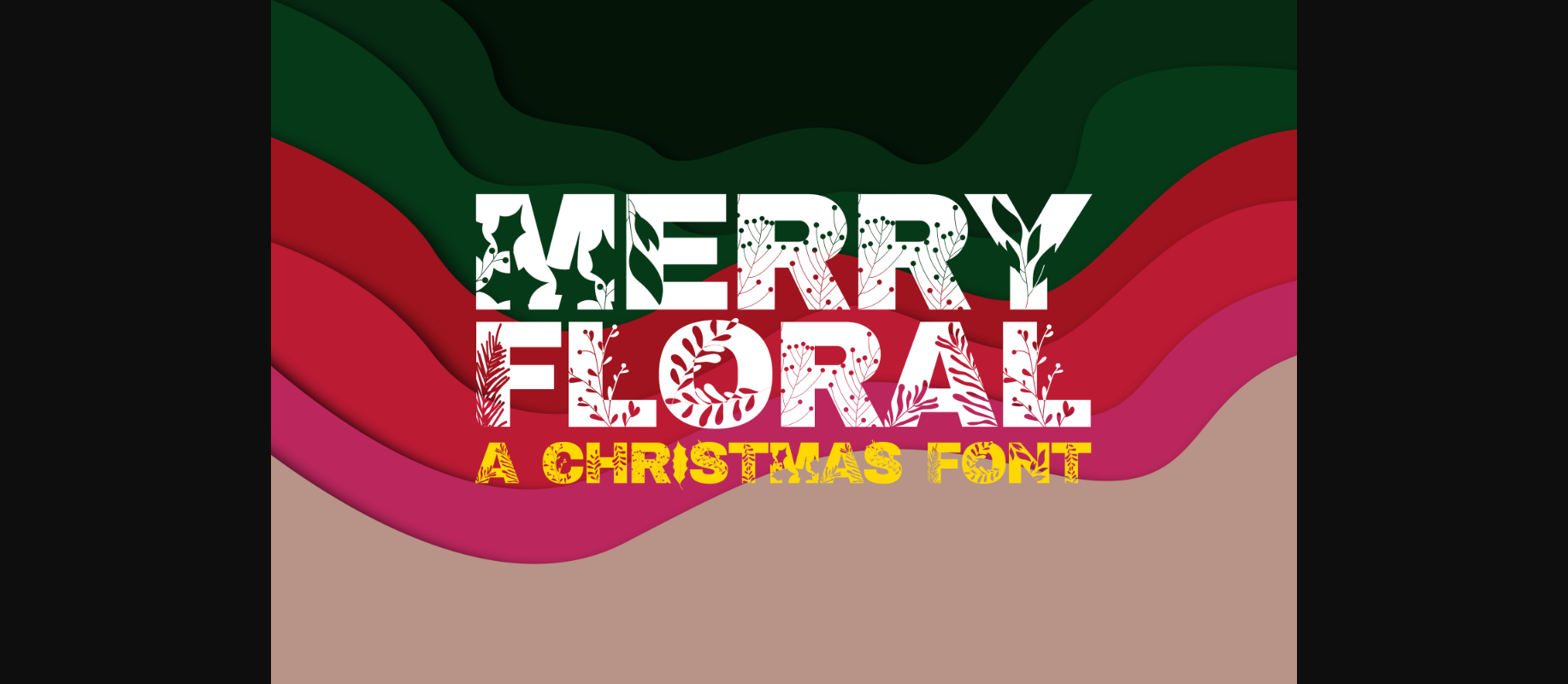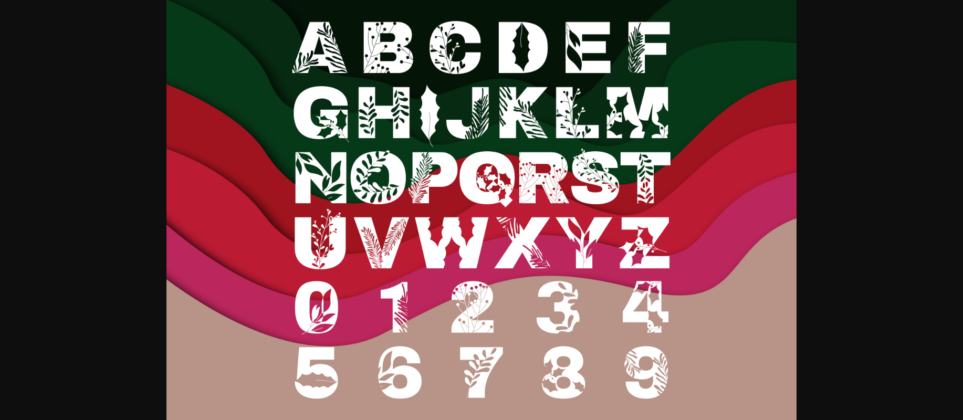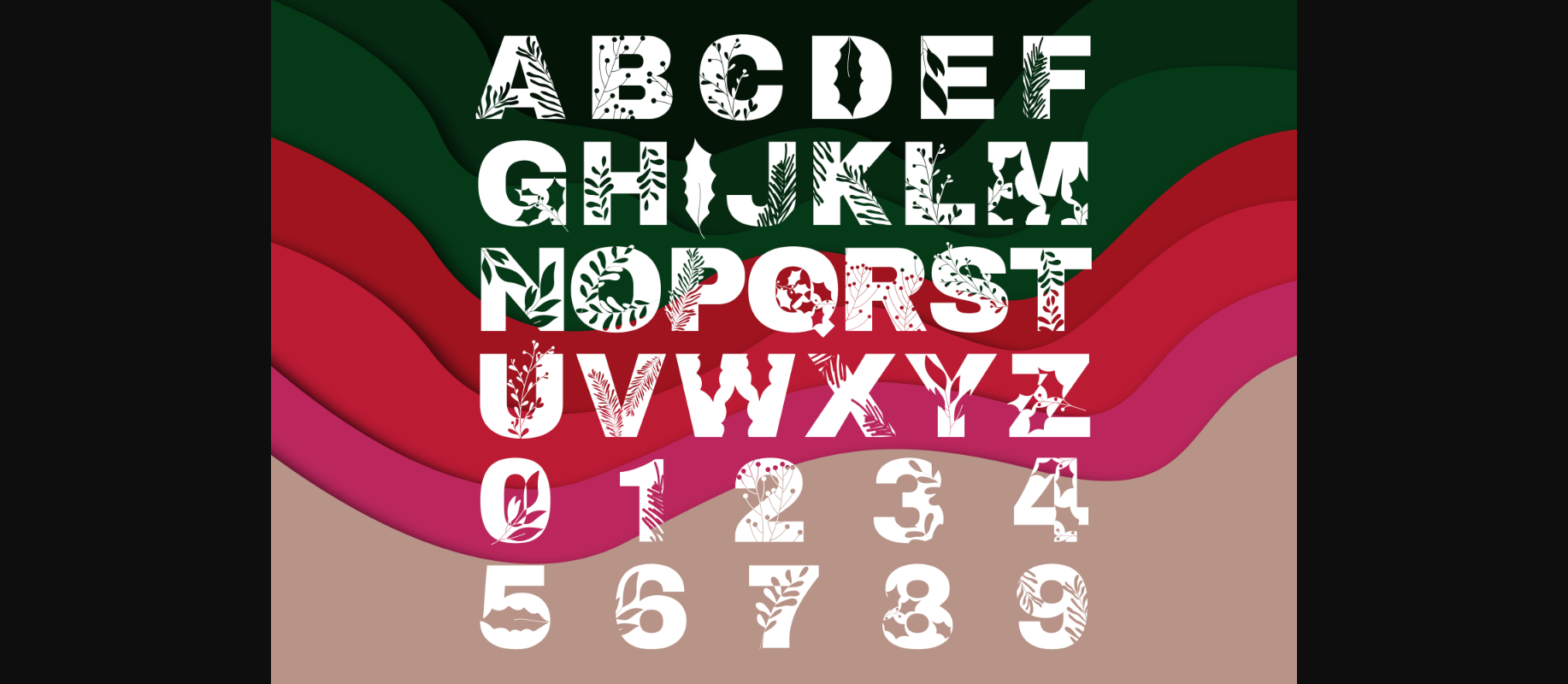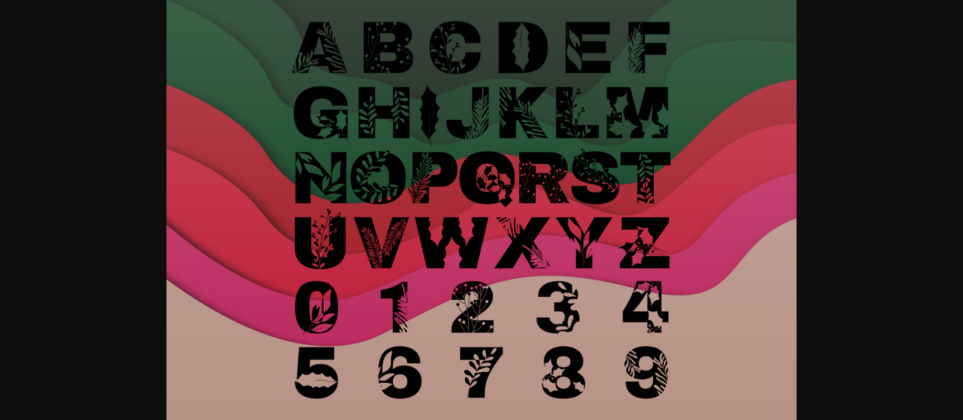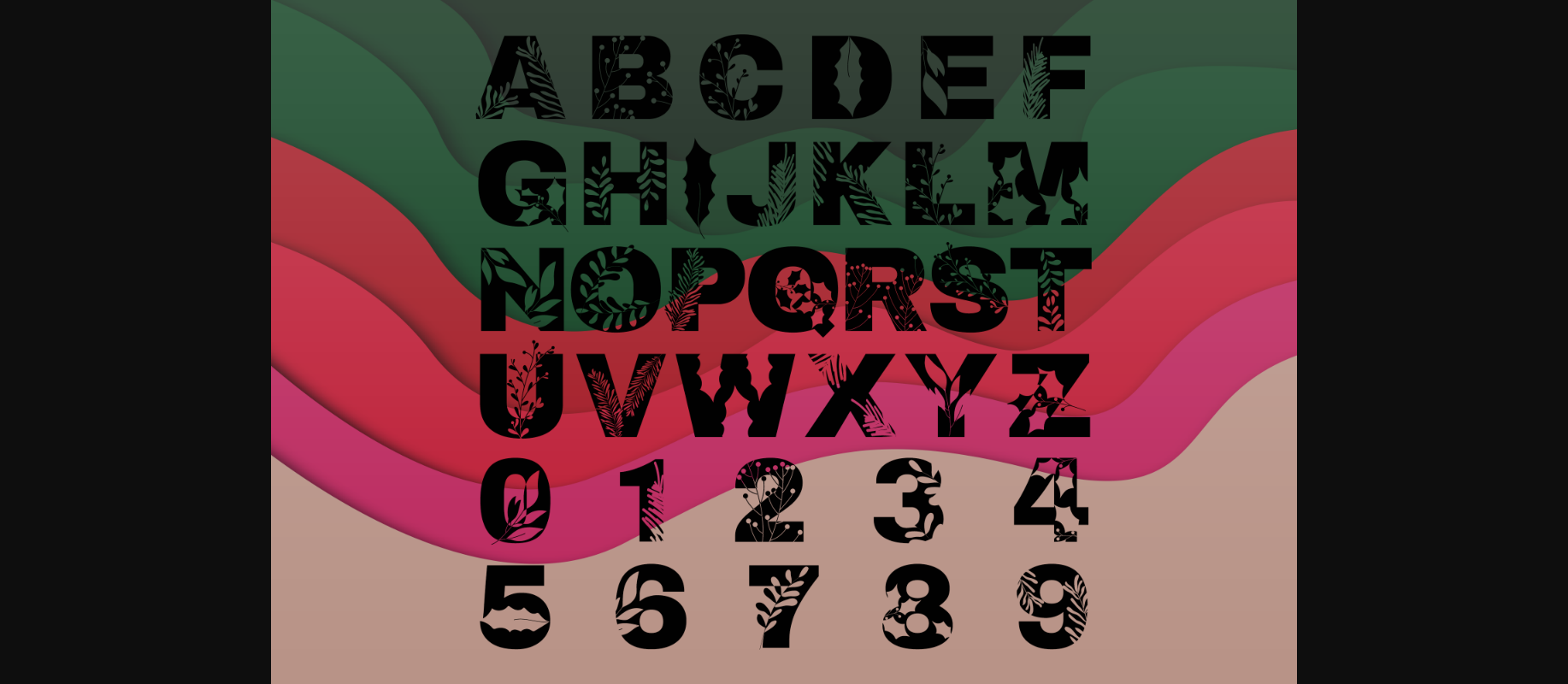
Merry Floral Font
About Merry Floral Font
Merry Floral is an incredibly cool and festive decorative font. Whether you use it for cartoon-related designs, children games, or just any creation that requires a lovely touch, this font will be an amazing choice.